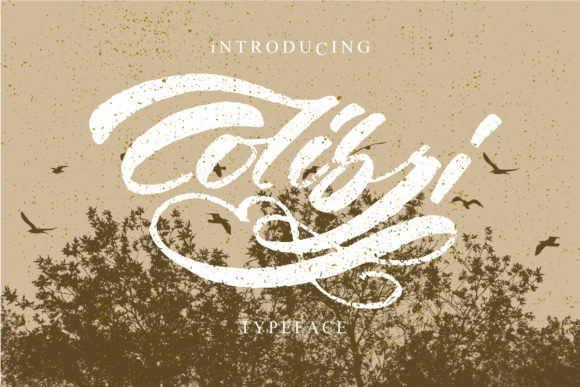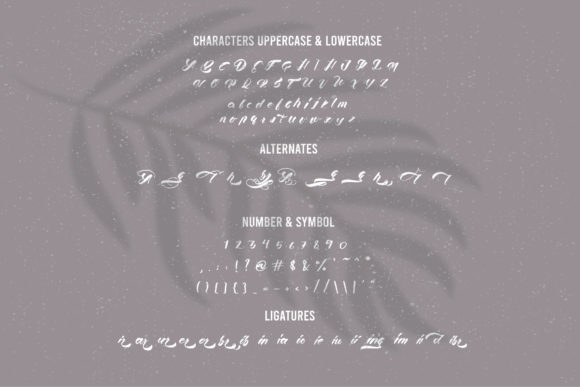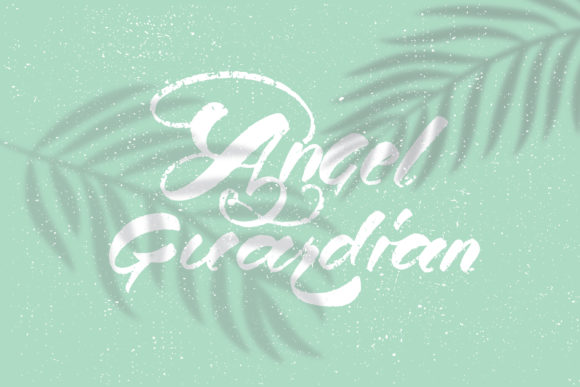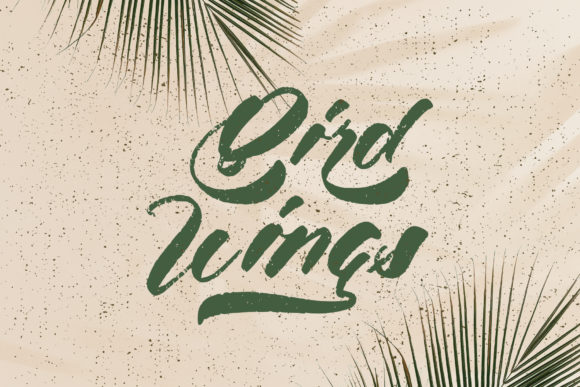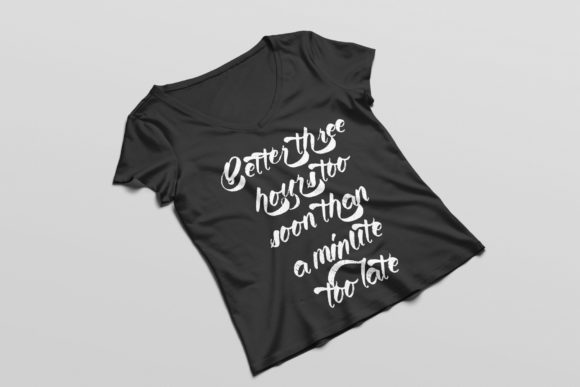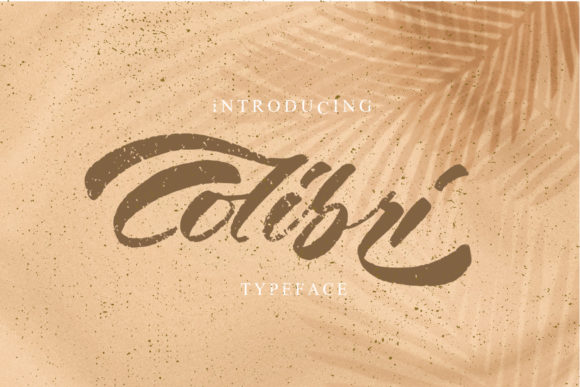
Introducing Colibri Font: Elevate Your Designs with a Bold, Stylish, and Whimsical Script Font
In the world of typography, a font can make or break a design. It’s the perfect blend of style, personality, and functionality that can elevate a creation from ordinary to extraordinary. If you’re a designer, crafter, or simply a creative enthusiast, you’re in luck! We’re excited to introduce you to Colibri Font, a bold, stylish, and whimsical script font that’s sure to become a prized asset in your font library.
What is Colibri Font?
Colibri is a carefully crafted script font that exudes confidence, elegance, and playfulness. Its unique blend of bold lines, flowing curves, and artistic flair makes it perfect for a wide range of design applications, from branding and advertising to crafting and DIY projects. Whether you’re looking to create a stunning logo, a beautiful invitation, or a captivating social media post, Colibri Font is the perfect choice.
Key Features of Colibri Font
- Bold and Stylish: Colibri Font boasts a bold and stylish design that’s sure to grab attention. Its confident lines and curves make it perfect for headlines, titles, and emphasis text.
- Whimsical and Playful: With its artistic flair and flowing connections, Colibri Font adds a touch of whimsy and playfulness to any design. It’s perfect for creating unique and eye-catching designs that stand out from the crowd.
- Versatile: Colibri Font is incredibly versatile and can be used for a wide range of design applications, from digital projects to print materials.
- Easily Readable: Despite its bold and stylized design, Colibri Font remains easily readable, making it perfect for body text, descriptions, and other written content.
Use Cases for Colibri Font
Colibri Font is an incredibly asset to any font library, and its versatility means it can be used in a wide range of design applications. Here are some use cases to get you started:
- Branding and Logo Design: Create a stunning logo that stands out from the crowd with Colibri Font. Its bold and stylish design makes it perfect for businesses, products, and services.
- Invitations and Stationery: Add a touch of elegance and whimsy to your invitations, greeting cards, and stationery with Colibri Font.
- Social Media Graphics: Create eye-catching social media graphics, posts, and stories with Colibri Font. Its bold and playful design is sure to grab attention and drive engagement.
- Crafting and DIY Projects: Use Colibri Font to add a personal touch to your crafting and DIY projects, such as handmade cards, gift tags, and decorations.
Why Choose Colibri Font?
With so many fonts available, why choose Colibri Font? Here are just a few reasons why Colibri Font stands out from the crowd:
- Unique and Exclusive: Colibri Font is a unique and exclusive font that’s sure to make your designs stand out from the crowd.
- High-Quality Design: Colibri Font is carefully crafted with attention to detail, ensuring a high-quality design that’s both stylish and functional.
- Easily Customizable: Colibri Font is easily customizable, allowing you to adjust the font to suit your design needs.
In conclusion, Colibri Font is an exceptional script font that’s sure to elevate your designs and become a prized asset in your font library. Its bold, stylish, and whimsical design makes it perfect for a wide range of design applications, from branding and advertising to crafting and DIY projects. With its versatility, readability, and high-quality design, Colibri Font is a must-have for designers, crafters, and creative enthusiasts alike.